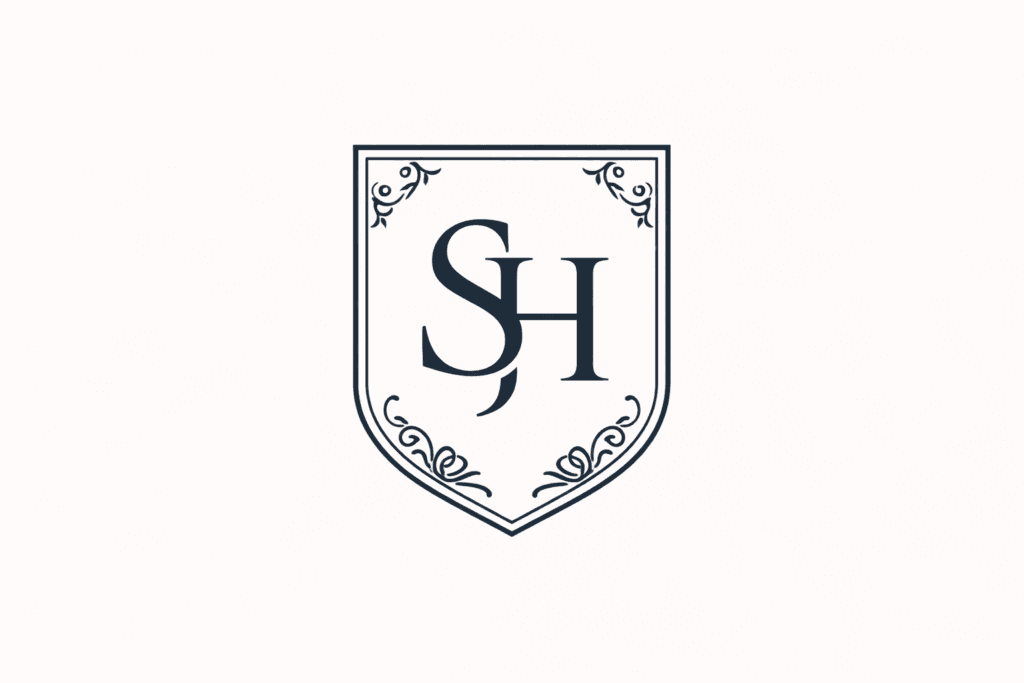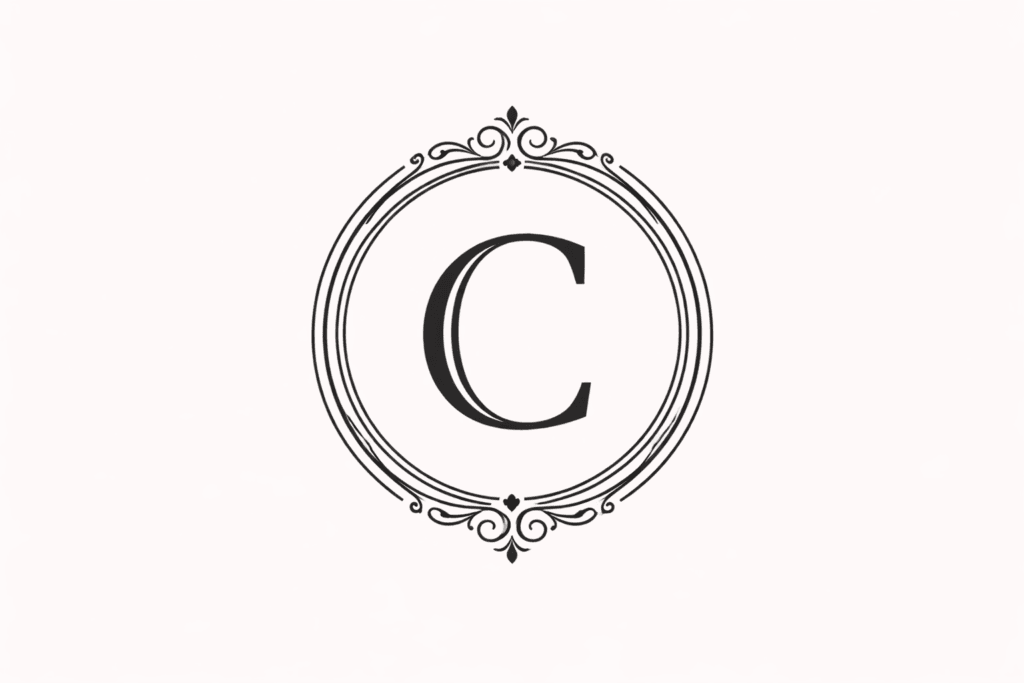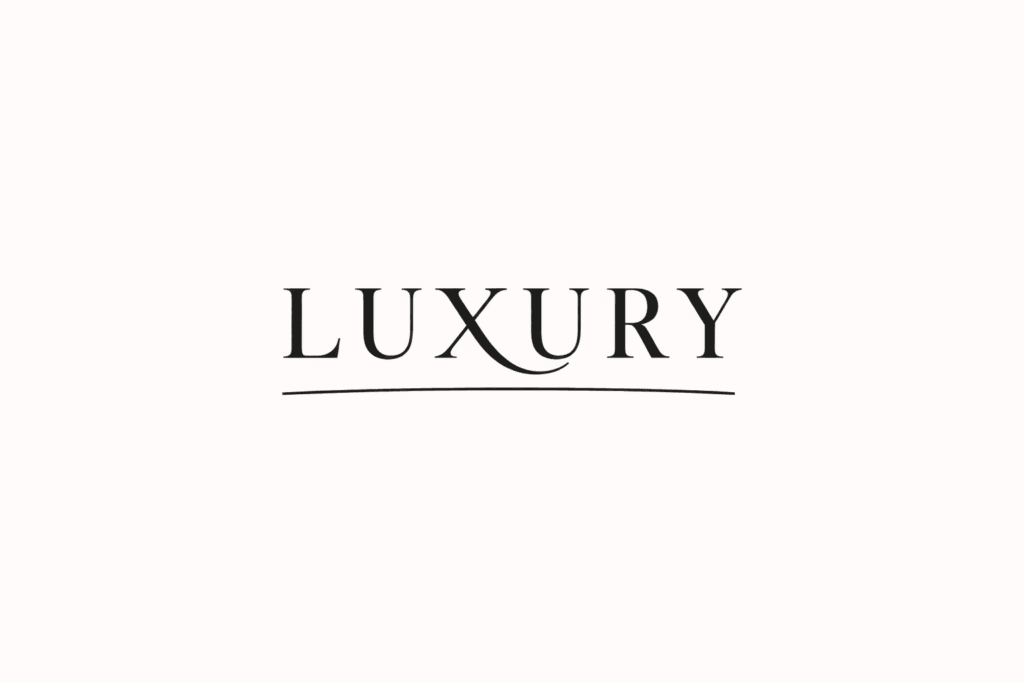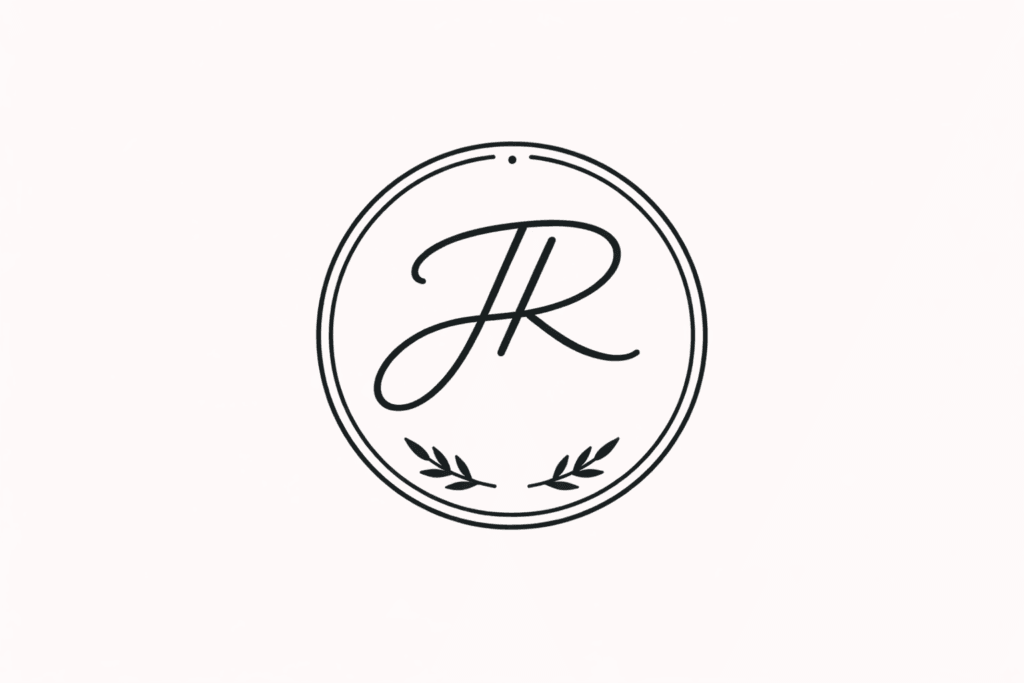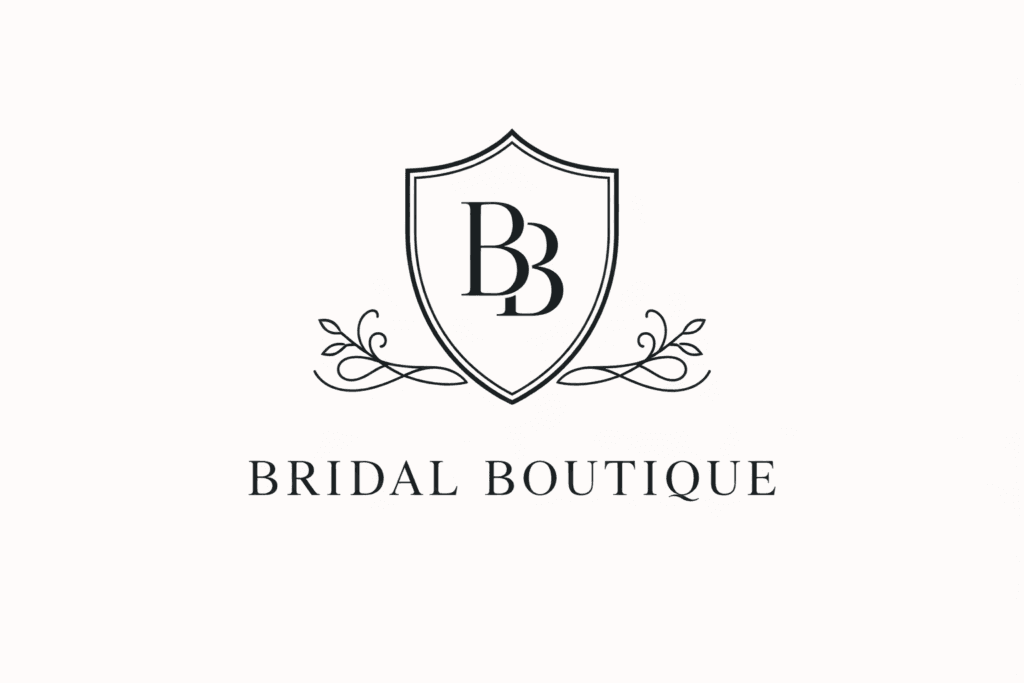
“Old money” luxury branding isn’t loud. It’s calm, confident, and timeless. Think refined typography, subtle crests, clean monograms, and elegant seals that feel like they’ve existed for decades. If you’re a vintage logo creator, the fastest way to explore this style is to use structured ai vintage logo prompts that focus on heritage details while keeping the final mark clean and usable.
This guide gives you a full collection of copy-paste ai vintage logo prompts designed for old money luxury aesthetics, plus rules that help you generate consistent results and avoid messy “AI-looking” logos.
AI Vintage Logo Prompts Starts with Old Money Style Rules
Before you generate anything, set the rules. Old money luxury is a design system, not a random vibe. Add these constraints to every ai vintage logo prompts you use.
Old money luxury logo constraints
Style: heritage luxury, old money, timeless, understated
Typography: high-contrast serif, classic Roman, refined italic (optional)
Composition: centered, balanced, symmetrical
Details: subtle crest, laurel, filigree (minimal), seal borders
Color: one-color (black) first, optional gold/ivory preview
Finish: print-ready, clean vector look, no gradients
Avoid: heavy distress, cartoon mascots, shiny 3D effects, clutter
These rules are the difference between elegant ai vintage logo prompts and generic outputs.
AI Vintage Logo Prompts Template You Can Reuse
Use this structure so your prompts are consistent.
Prompt template:
“Create a vintage old money luxury logo for (brand name) in the (industry).
Logo type: (crest / monogram / seal / wordmark).
Vibe: understated, heritage, premium, timeless.
Typography: refined high-contrast serif with elegant spacing.
Elements: (choose 1-2: laurel wreath, crown, shield, ribbon, crest lines).
Color: one-color black on white, vector style, print-ready.
Deliver: icon + wordmark lockup, no mockup, no background texture.”
Now let’s get into the collection of ai vintage logo prompts.
AI Vintage Logo Prompts for Luxury Monogram and Lettermark Marks
Monograms are the most “old money” logo type because they feel personal, exclusive, and formal.
“Old money luxury monogram logo for (brand name), initials (AB), intertwined lettermark, high-contrast serif, thin strokes, perfect symmetry, one-color black vector.”
“Vintage luxury lettermark logo, initials (LM), classic Roman serif, subtle ligature, minimal crest lines, one-color, print-ready.”
“Heritage monogram logo with initials (RS) inside a thin oval frame, delicate laurel accents, elegant spacing, black vector.”
“Old money monogram seal, initials (C) in a circle, micro serif details, clean border, subtle flourishes, no texture, one-color.”
“Luxury boutique monogram logo, initials (EV), refined italic serif, minimal ribbon underline, one-color black, premium.”
Example AI Vintage Logo for Old Money Monogram Seal with Initials (C) in a Circle.
These ai vintage logo prompts work best when you keep the monogram readable at small sizes.
AI Vintage Logo Prompts for Crests and Heraldic Emblems
Crests can look luxury when they’re controlled. Too many details quickly become messy.
“Old money crest logo for (brand name), simple shield emblem, one laurel wreath, small crown, high-contrast serif wordmark, black vector.”
“Heritage crest logo with minimalist coat of arms, two thin branches, clean ribbon banner for tagline, one-color black, symmetrical.”
“Luxury hotel crest logo, classic shield + monogram initials, thin border, subtle filigree corners, refined serif, one-color.”
“Vintage country club crest logo, round badge with laurel, centered initials, serif name around border, clean vector, no distress.”
“Old money brand crest: oval emblem, laurel top, small star detail, premium serif typography, black and white only.”
Example AI Vintage Logo for Luxury Hotel Crest Logo.
These ai vintage logo prompts are great for wedding brands, boutiques, and premium hospitality.
AI Vintage Logo Prompts for Seal and Stamp Logos
Seals feel official and timeless. Perfect for old money style.
“Luxury seal logo for (brand name), circular stamp with double border, serif name around edge, initials in center, clean vector, one-color.”
“Vintage wax-seal inspired logo (vector style), minimal circle border, monogram initials, refined serif text, no texture, black only.”
“Heritage stamp logo for (brand name), square seal with rounded corners, subtle corner ornaments, serif wordmark, one-color.”
“Old money seal: thin ring border + micro dot pattern, centered monogram, calm typography, one-color black, print-ready.”
“Luxury perfumery seal logo, oval stamp, serif typography, small divider lines, minimal ornaments, one-color.”
Example AI Vintage Logo for Vintage Wax-Seal with Monogram Initials.
distressed textures (not old money)
heavy shadows and gradients
mixing too many fonts
random icons that don’t match the category
Refinement is the secret to elegant ai vintage logo prompts.
Old money luxury branding is about restraint, structure, and timeless typography. With the right ai vintage logo prompts, you can generate strong crest, monogram, seal, and wordmark directions quickly, then refine the best concepts into clean vector marks that feel premium.